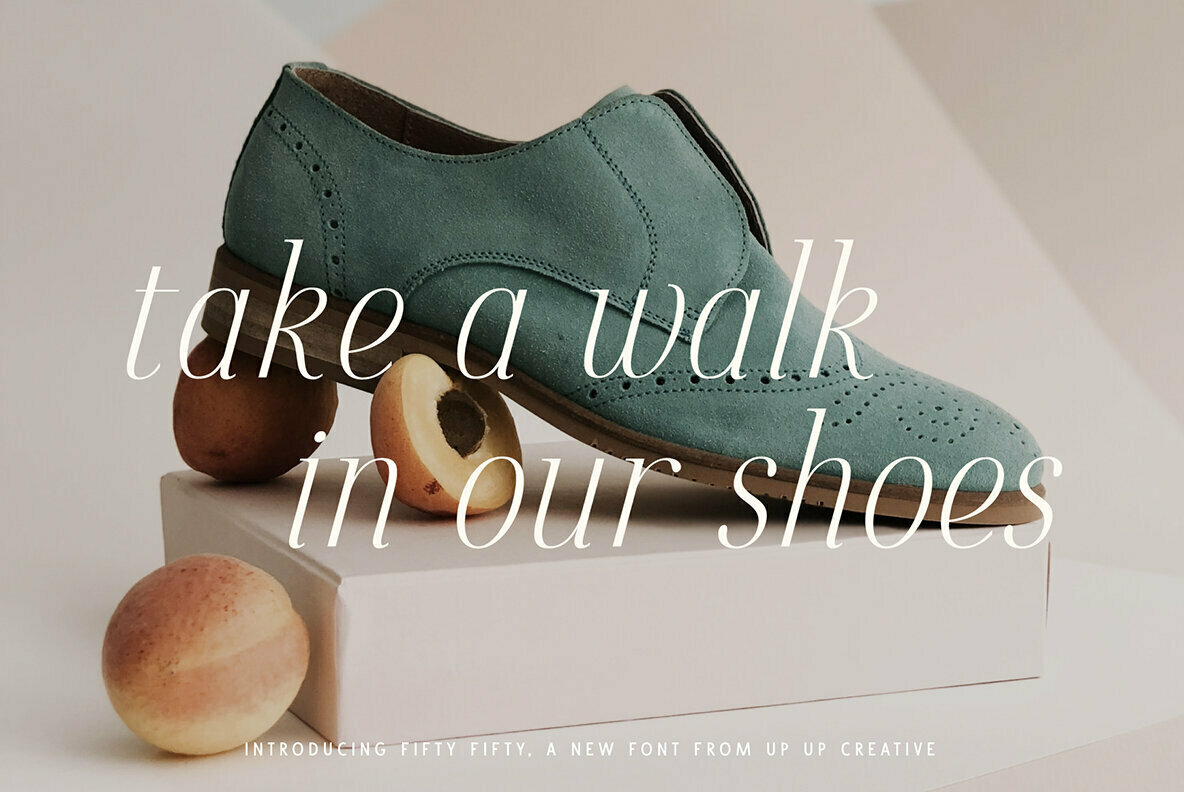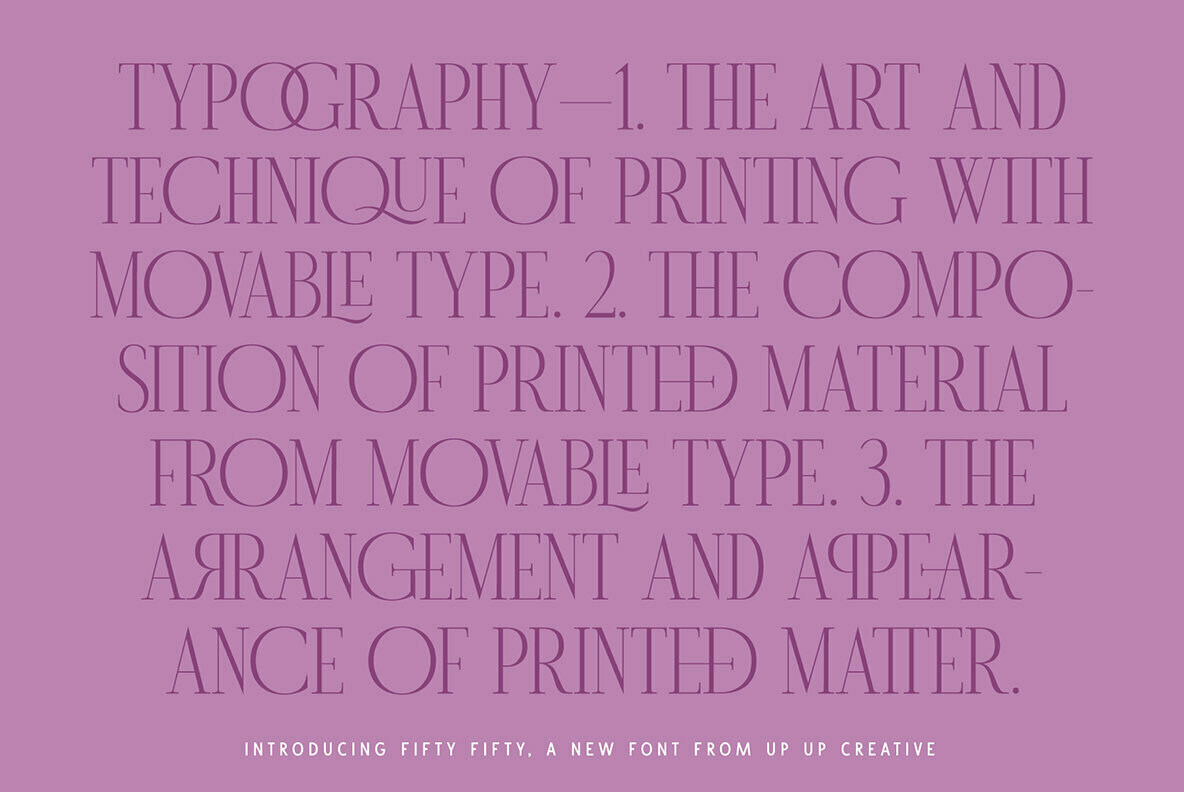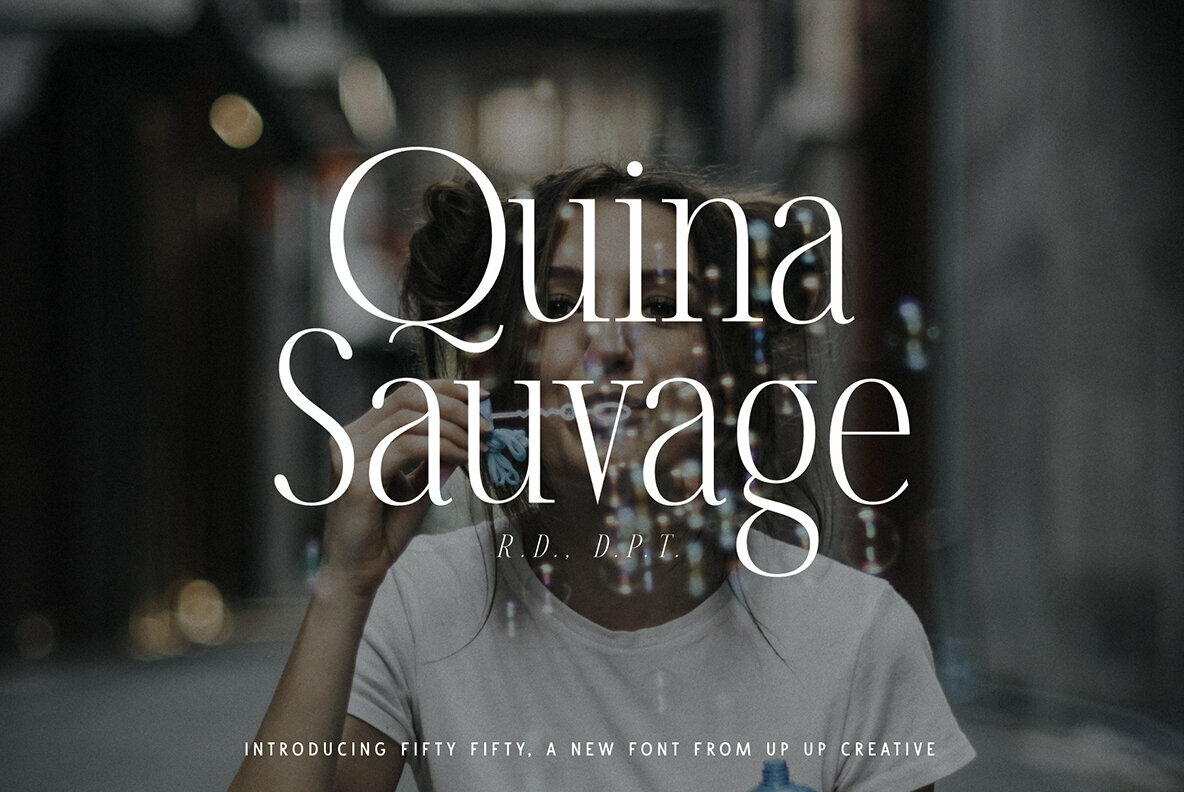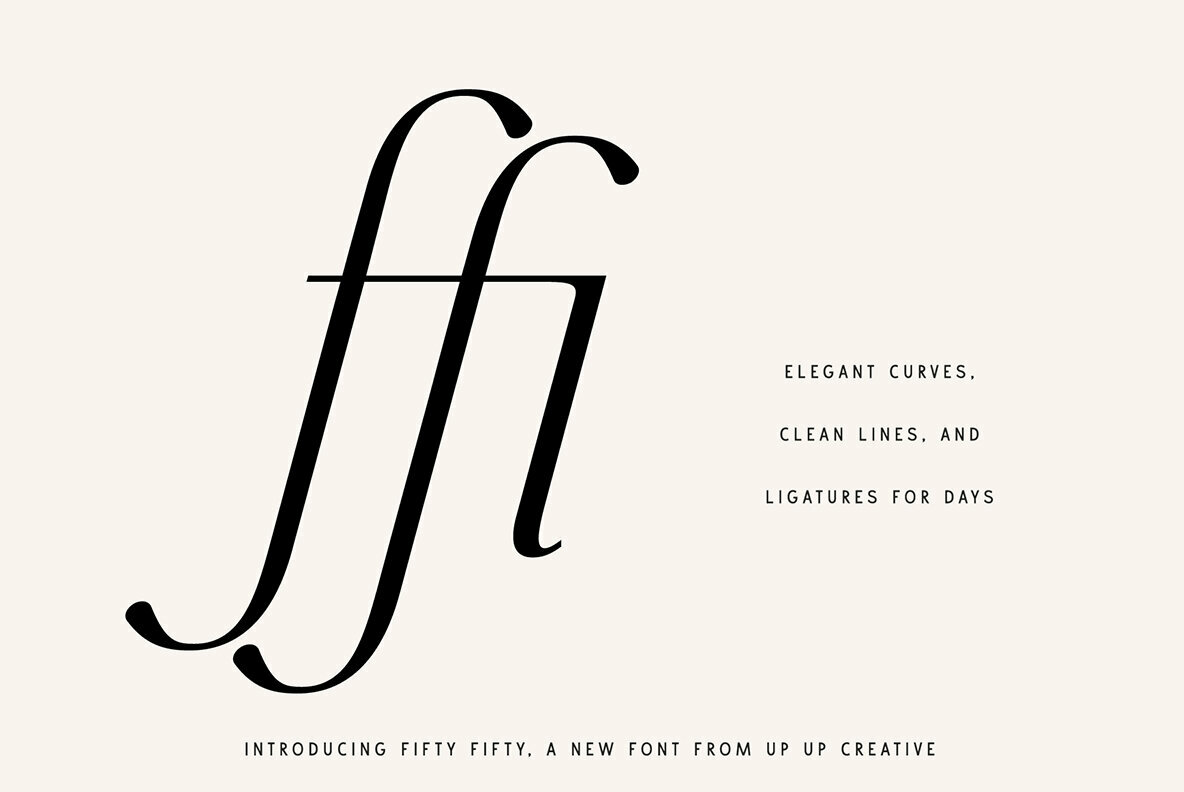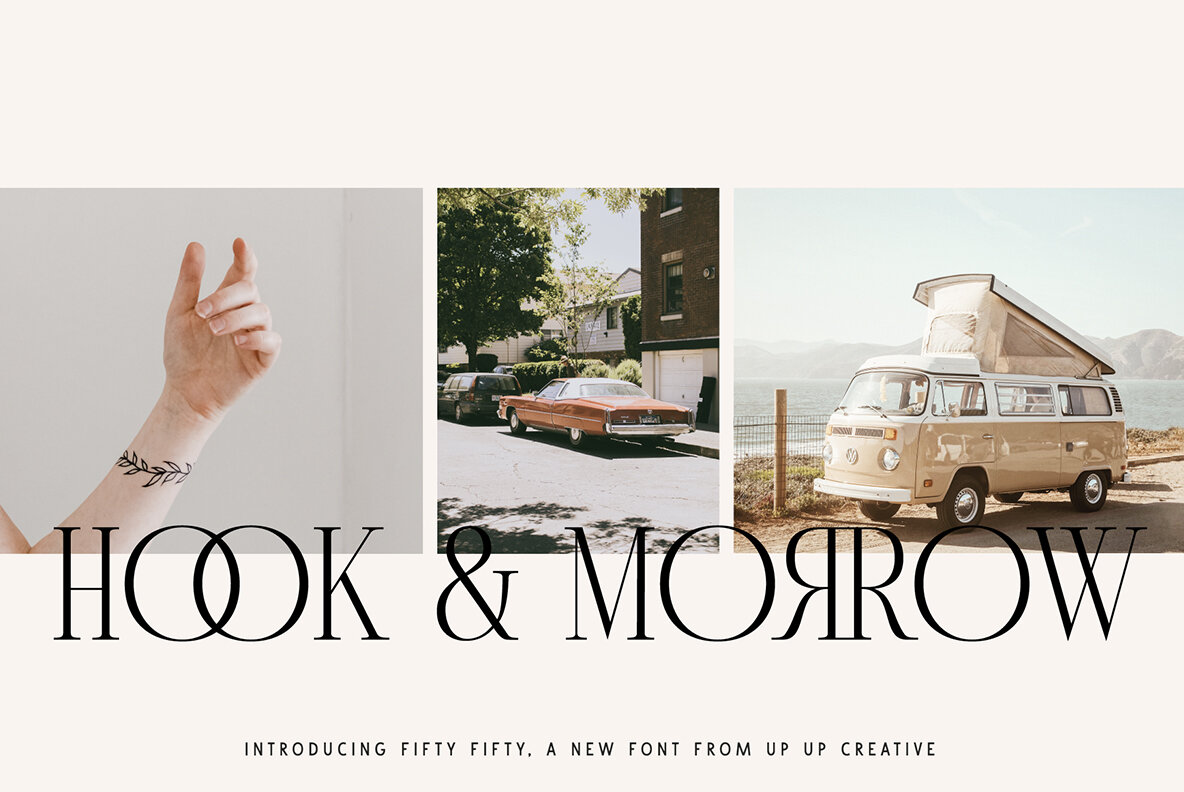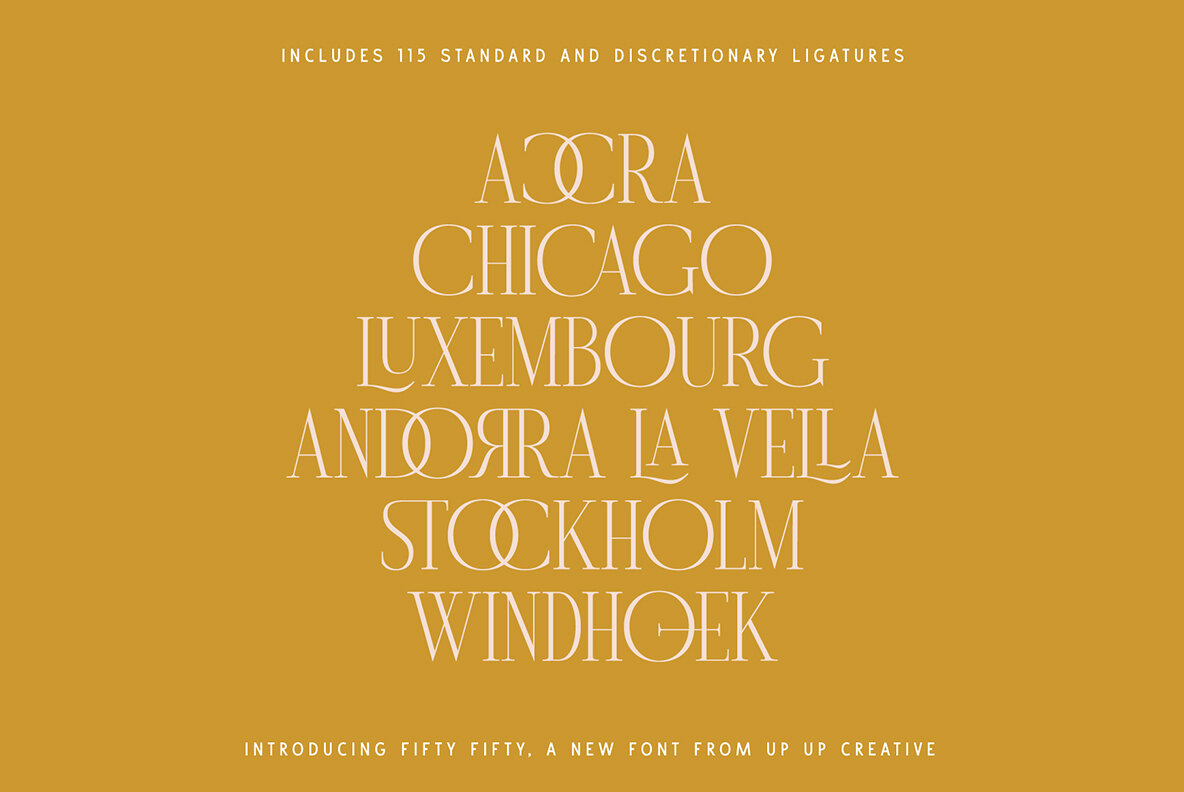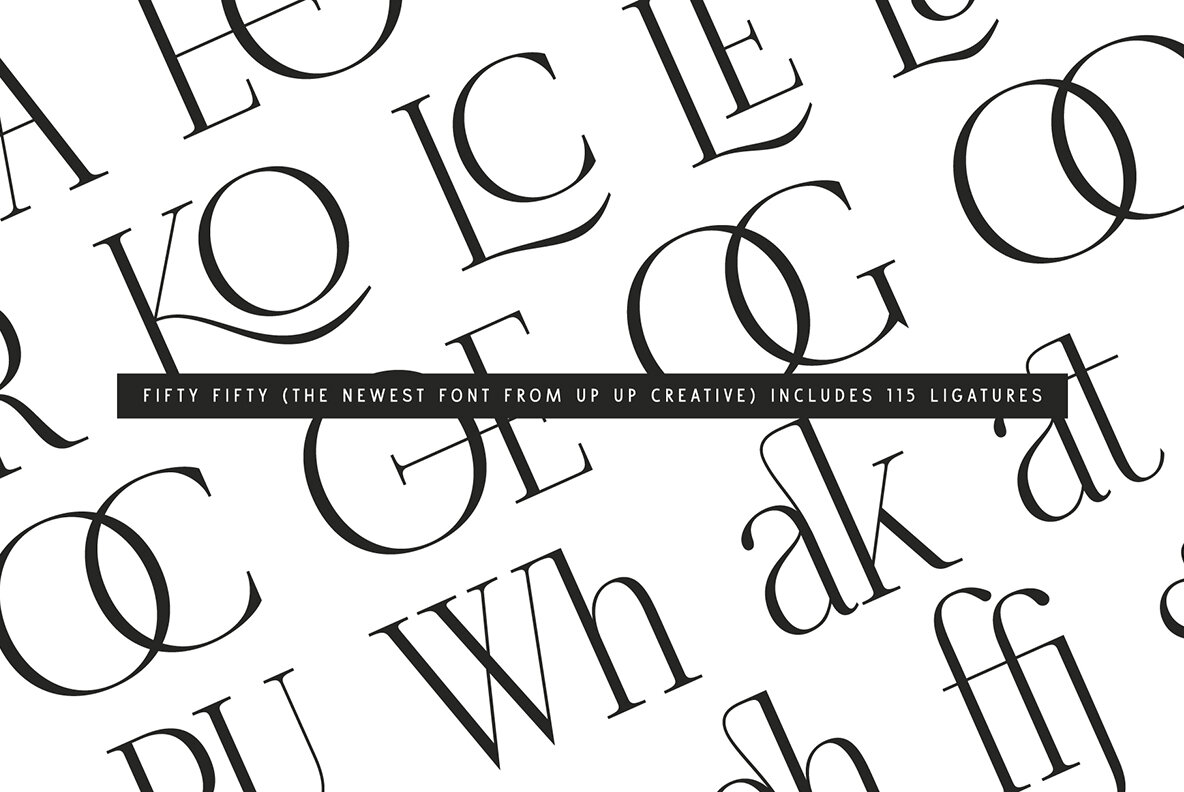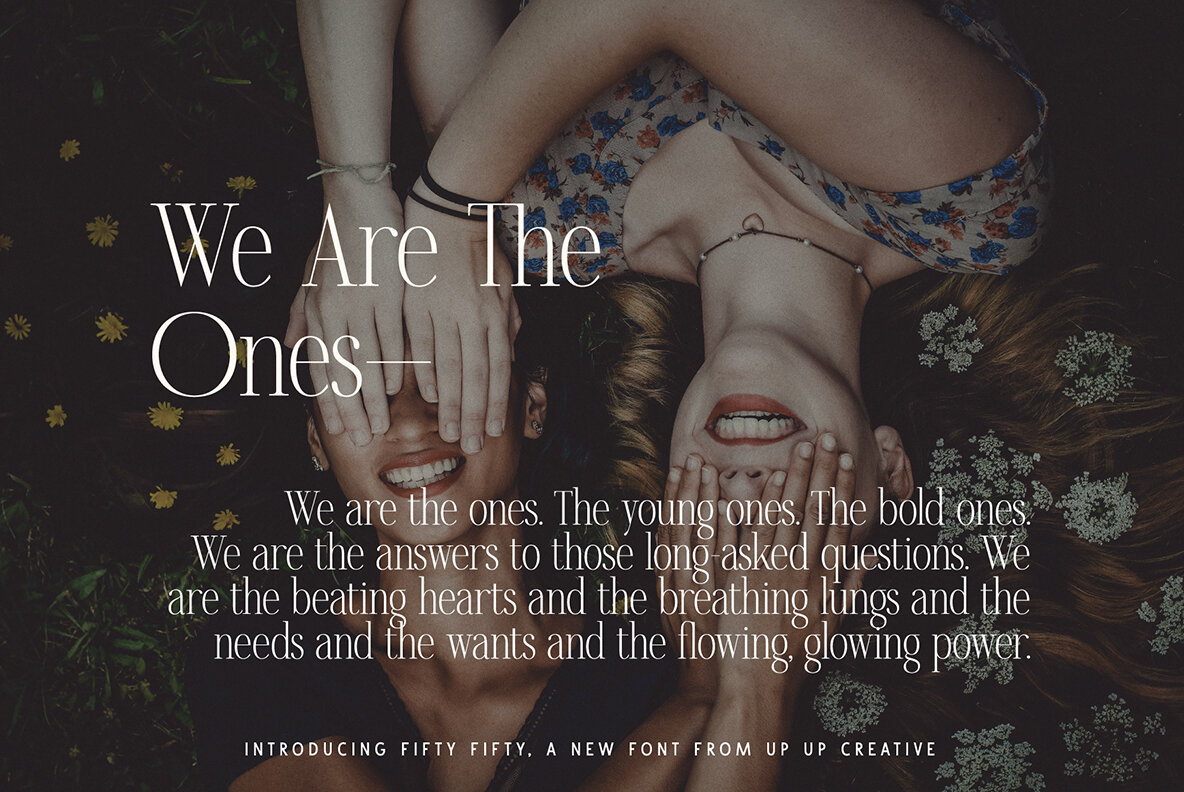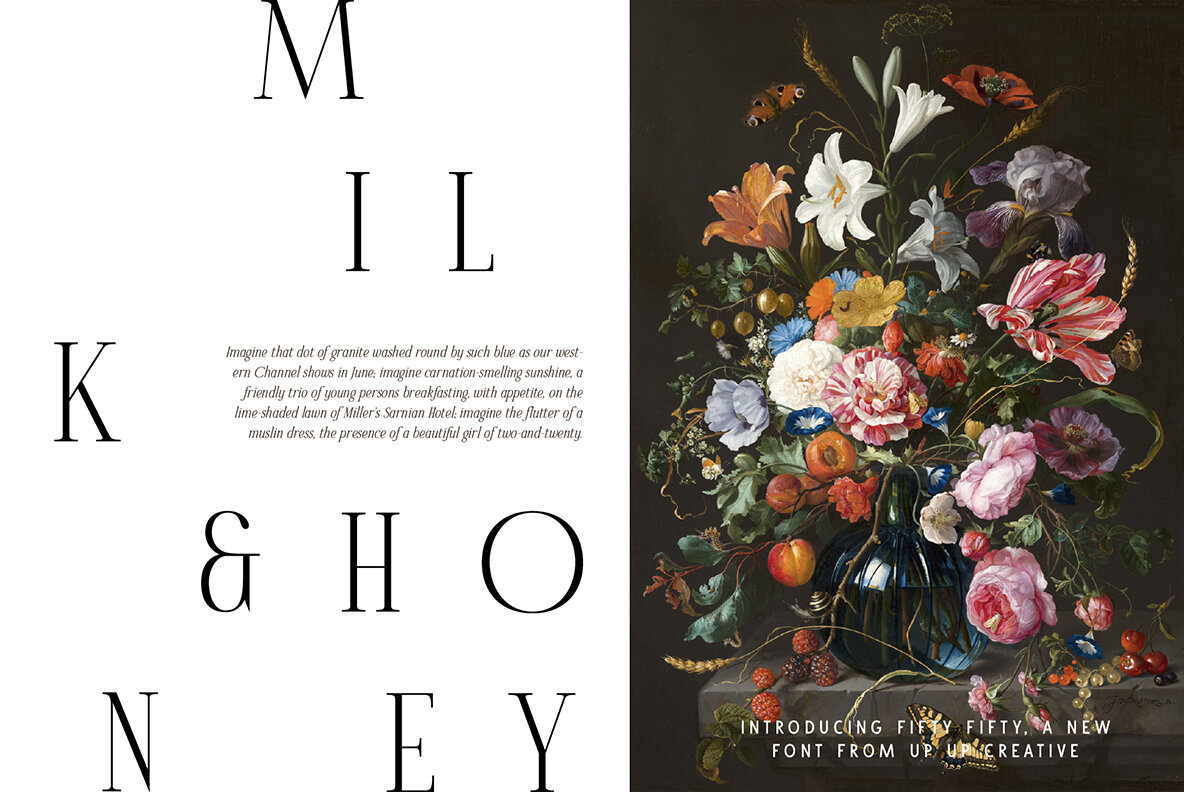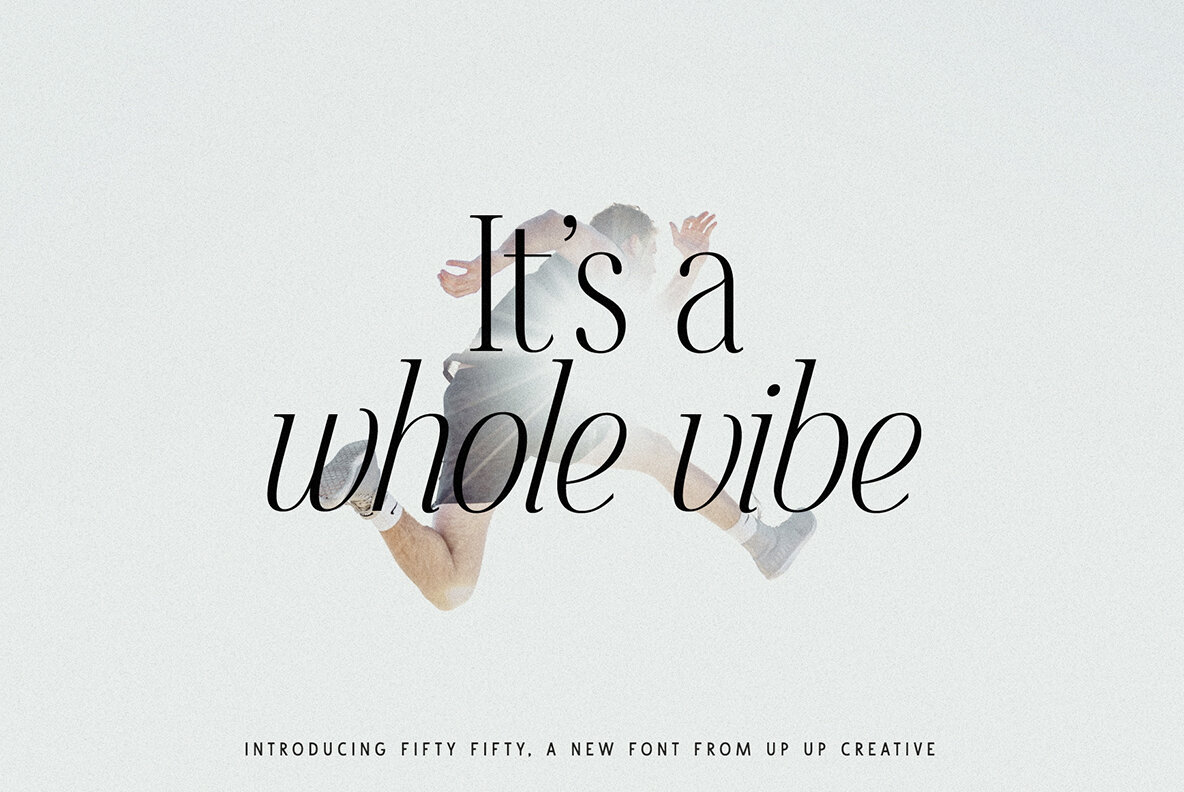
Fifty Fifty 1
Fifty Fifty is an editorial serif font (regular and italic) with smooth curves and more than 100 ligatures. It’s gorgeous in all caps, but the lowercase letters can really hold their own. Fifty Fifty is perfect for headlines, editorial design, monograms, branding, logos, poster design, and more.
Fifty Fifty includes approximately 700 glyphs and a whopping 115 standard and discretionary ligatures. Additional OpenType features include character variants, stylistic sets, and multilingual support (including multiple currency symbols).